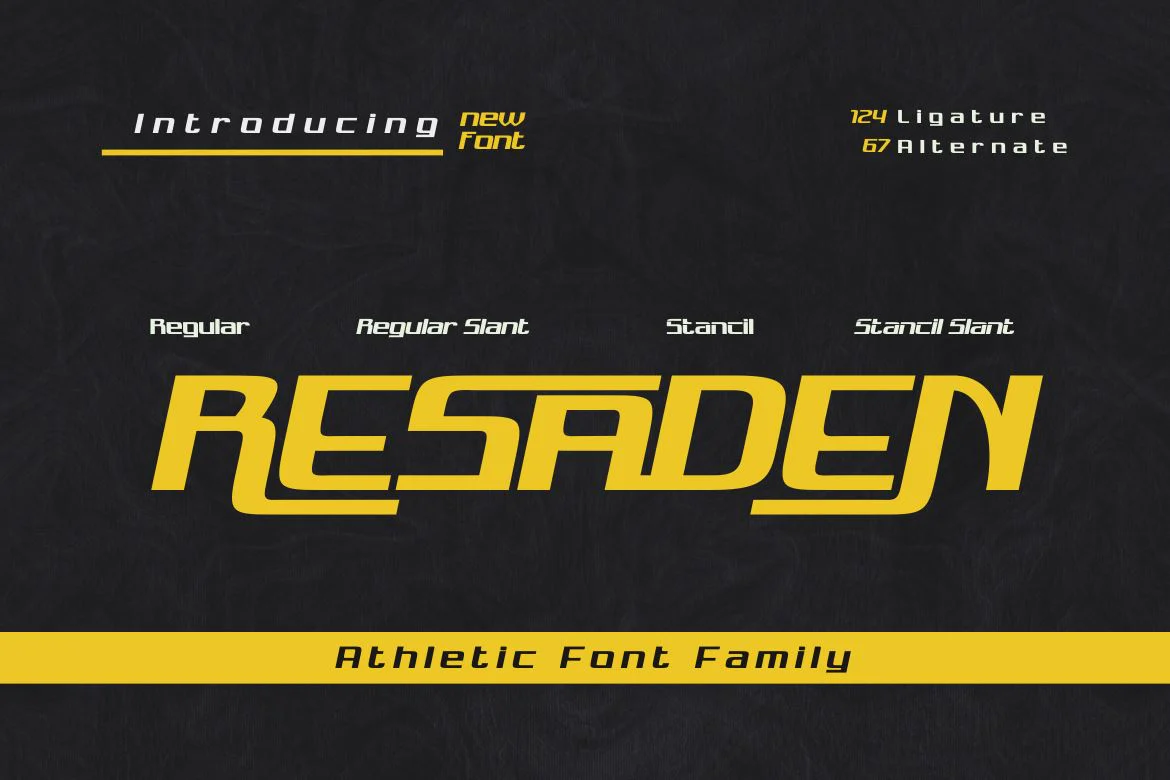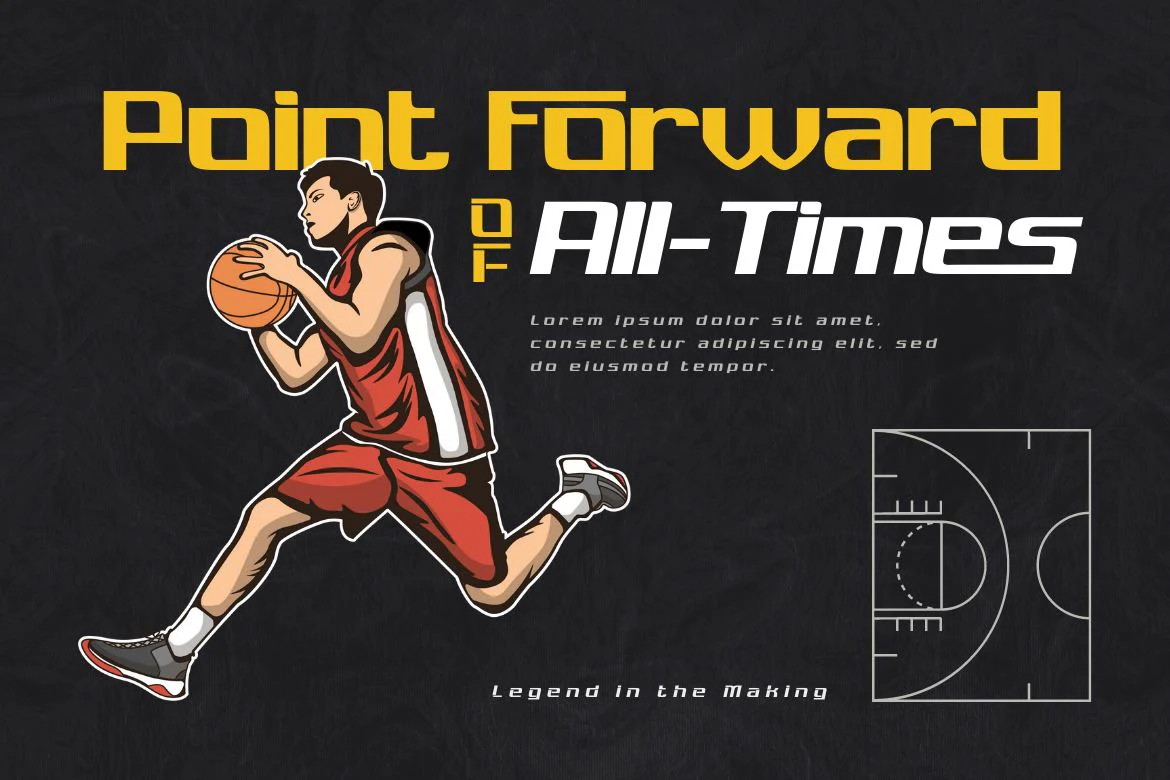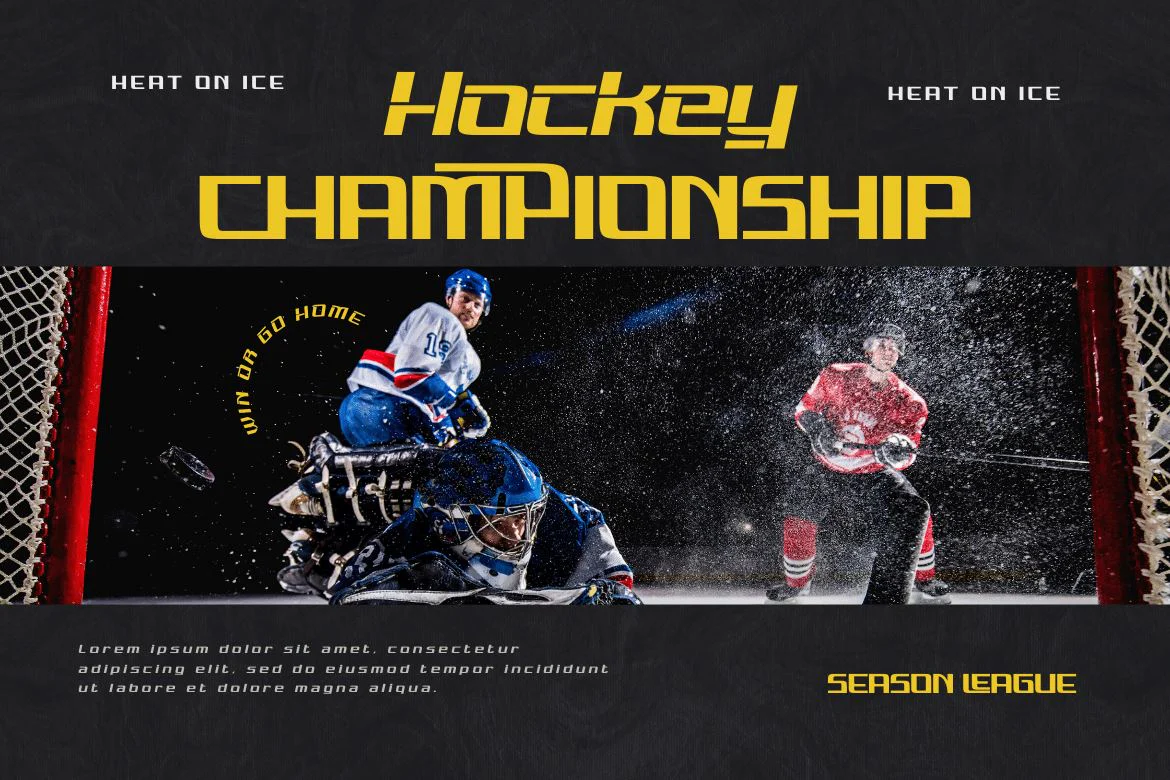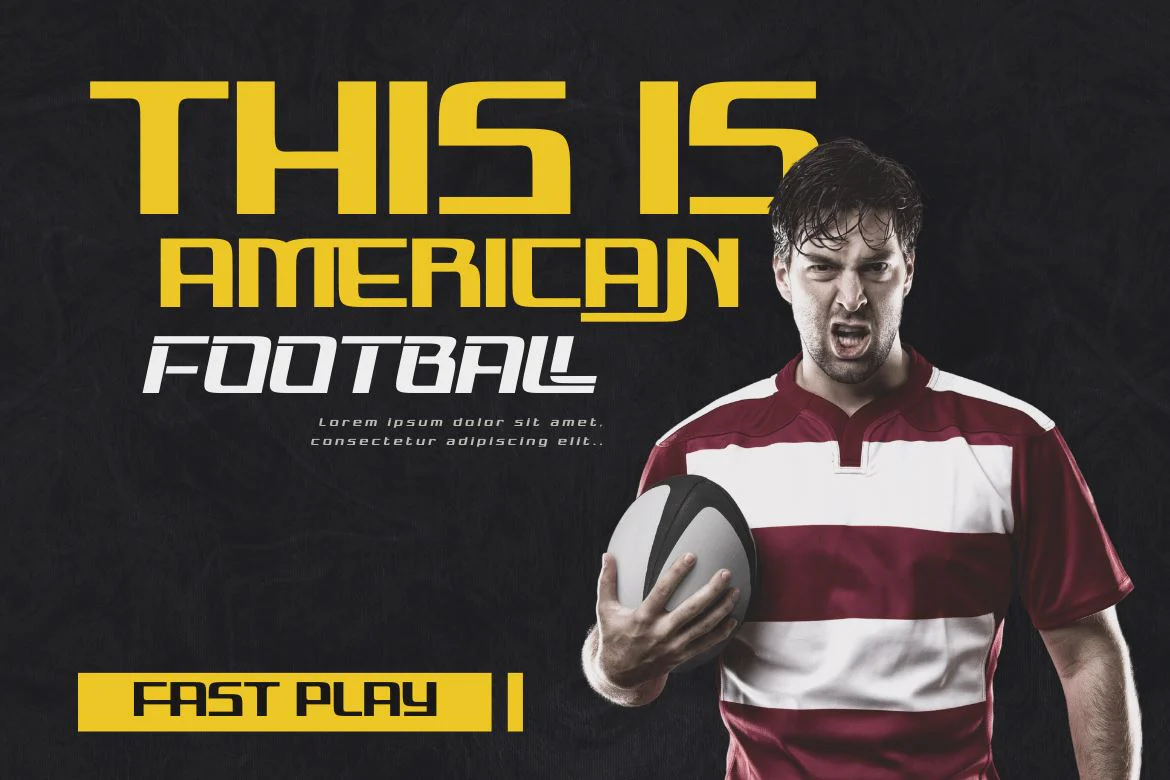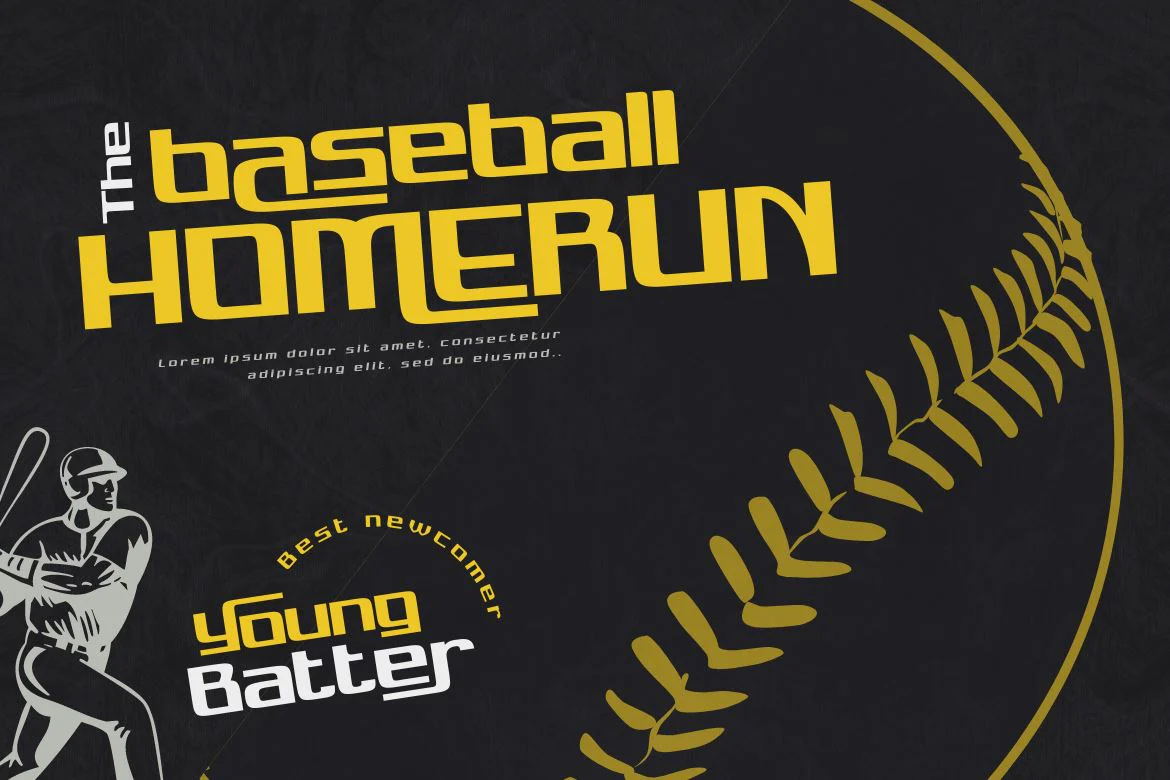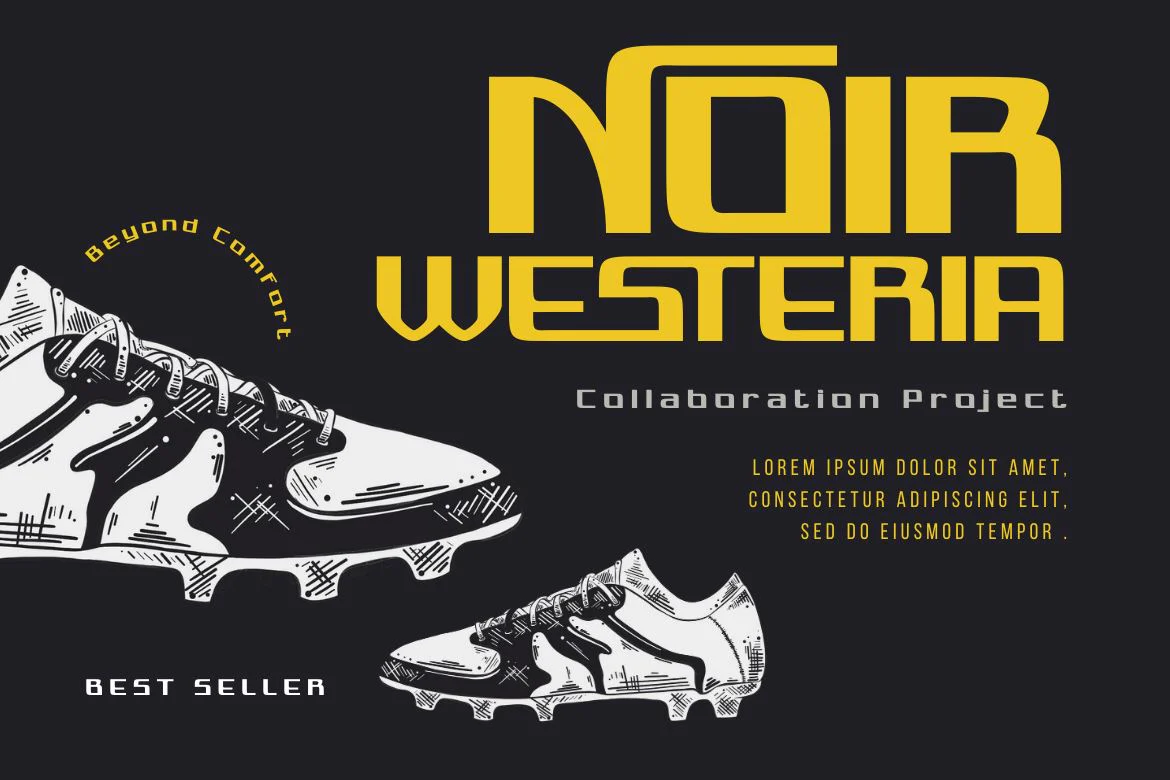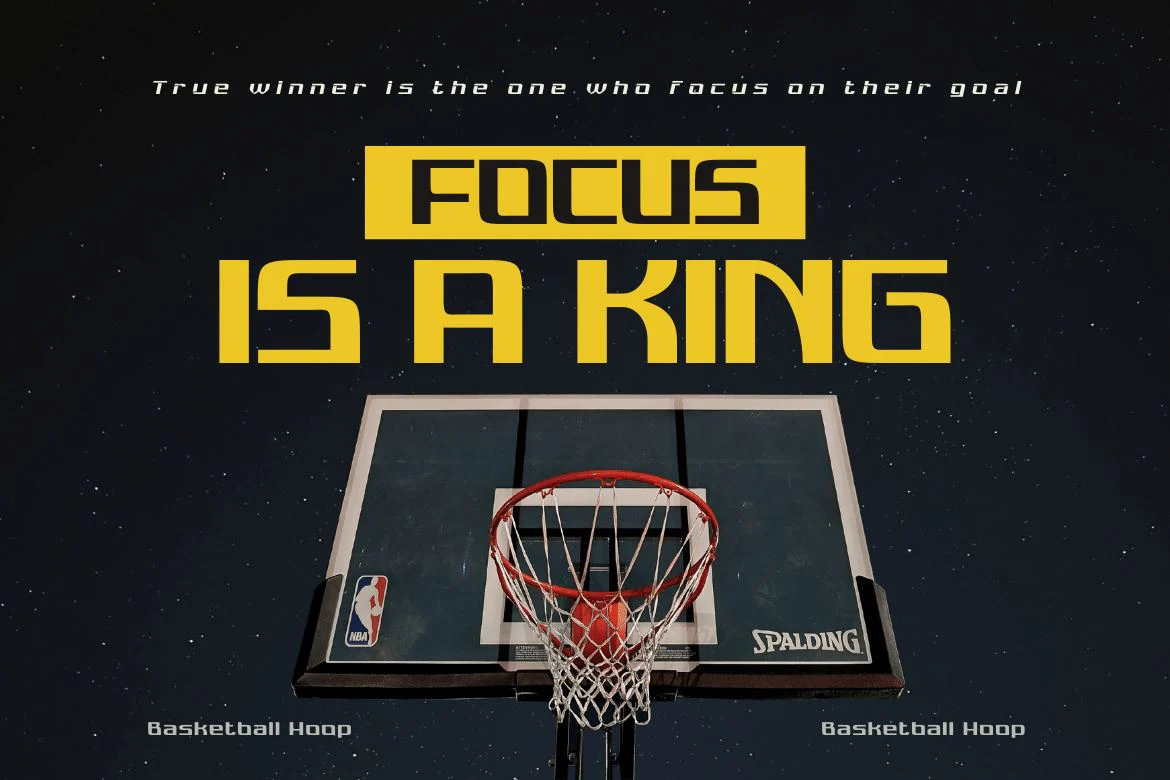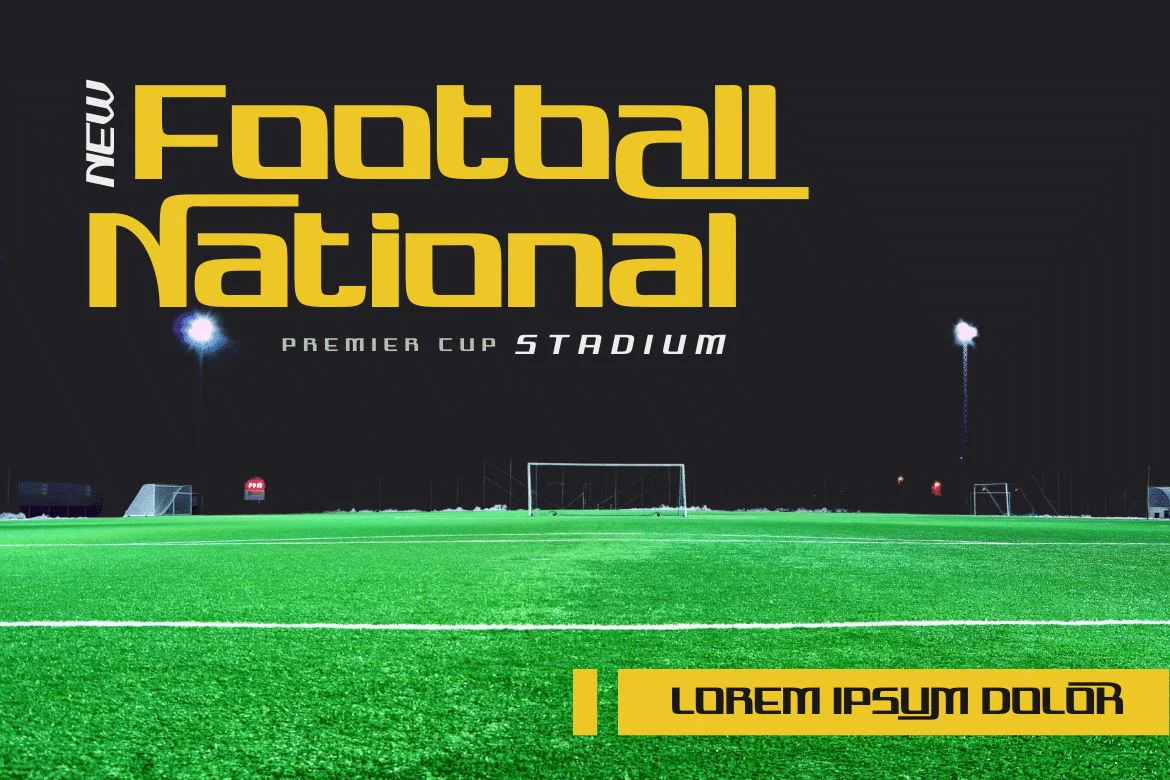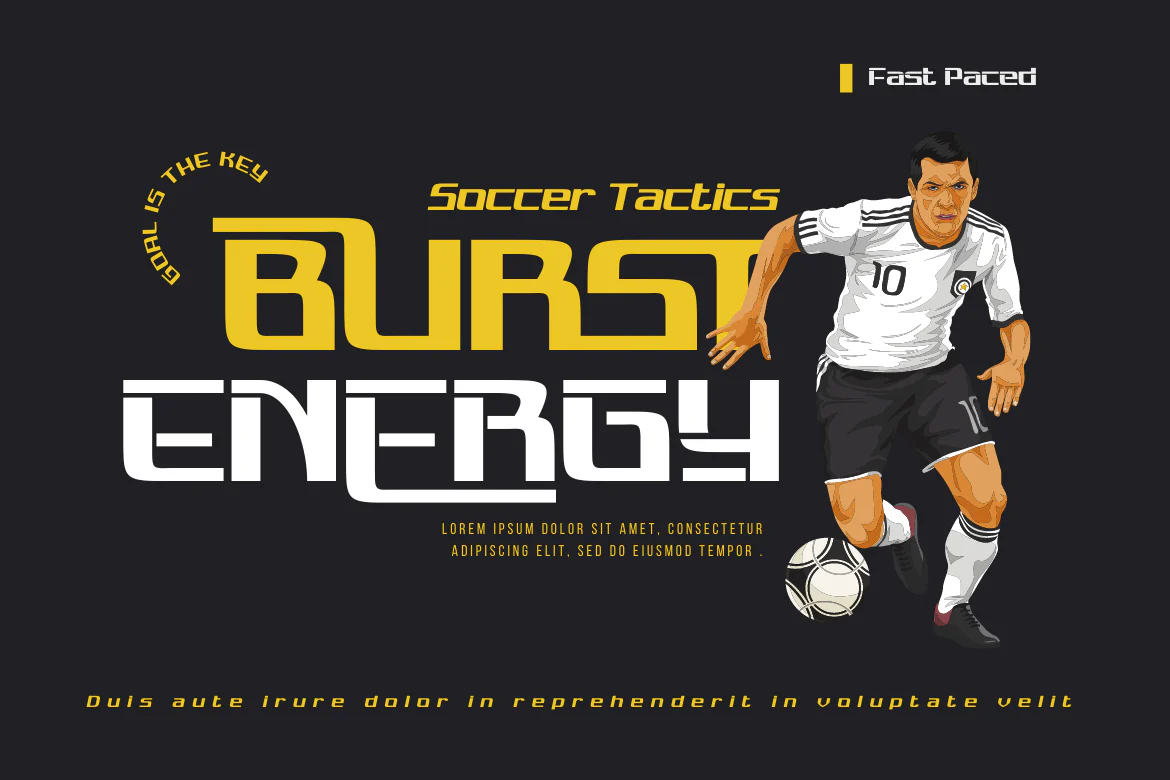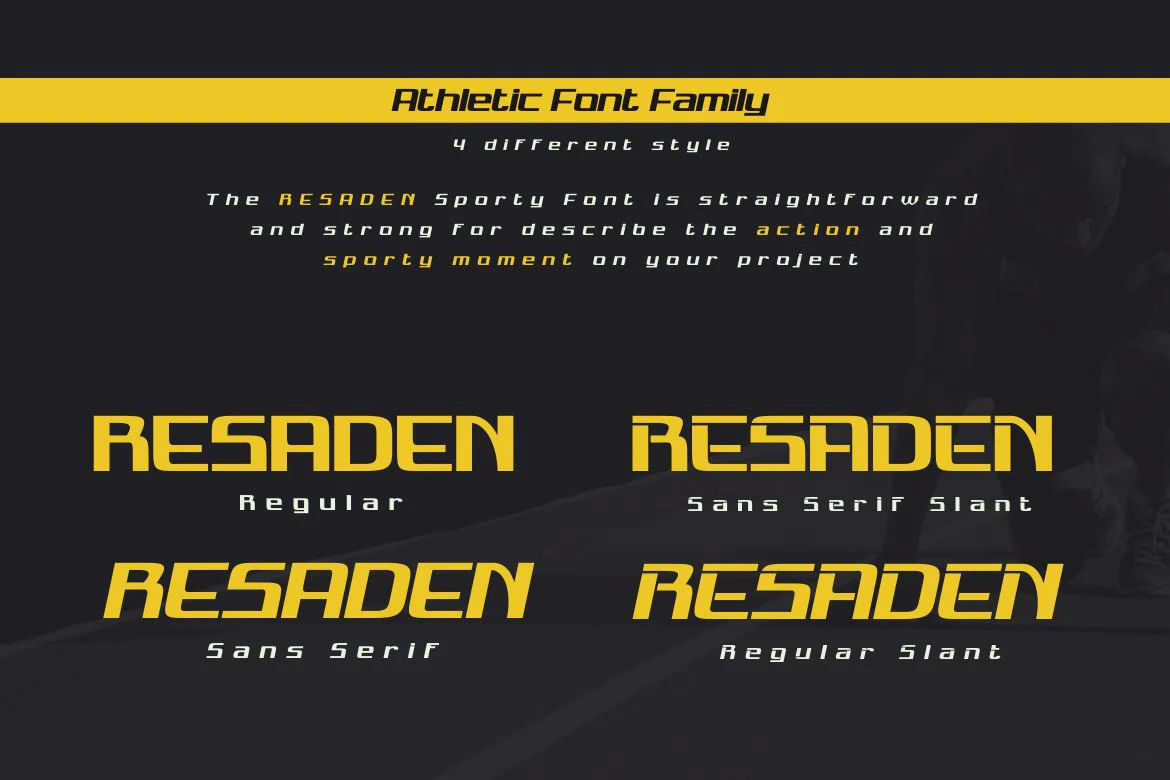
RESADEN | Athletic Font
Resaden is a powerful display font designed to grab attention and highlight any project that calls for a bold, strong, vibrant, and sporty look made to add a dynamic touch to your sports-themed designs. a sporty and modern font, perfect for sports t-shirts, sports events, and more. Its bold style conveys a strong and sporty impression. This font can also be used for any headline or documentary project.
This font has 67 alternates and 124 ligatures for all letters, as well as 4 styles making it a versatile tool for creating originality in your various design needs.
Resaden is a powerful display font designed to grab attention and highlight any project that calls for a bold, strong, vibrant, and sporty look made to add a dynamic touch to your sports-themed designs. a sporty and modern font, perfect for sports t-shirts, sports events, and more. Its bold style conveys a strong and sporty impression. This font can also be used for any headline or documentary project.
This font has 67 alternates and 124 ligatures for all letters, as well as 4 styles making it a versatile tool for creating originality in your various design needs.